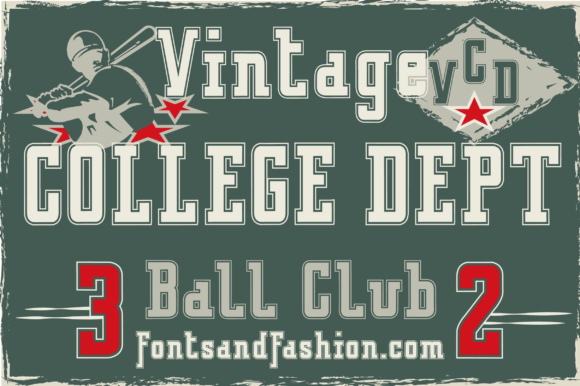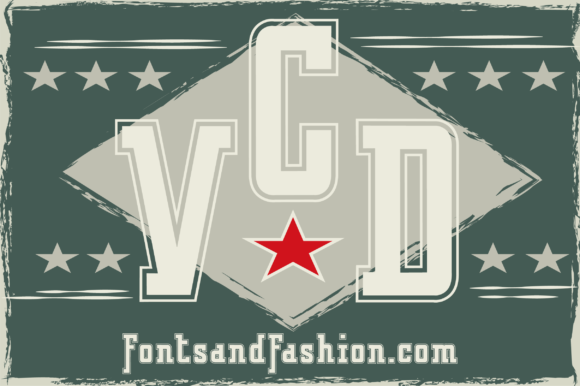
Vintage College Dept_Outline Font
About Vintage College Dept_Outline Font
VINTAGE COLLEGE DEPT_OUTLINE FONT SPECIMEN
VINTAGE COLLEGE DEPT_Outline is a “fancy” variant of the “Pure” version of this font. The outline confers a deeply sporty character to this slab serif font.
It’s wonderful for making your work STAND OUT!